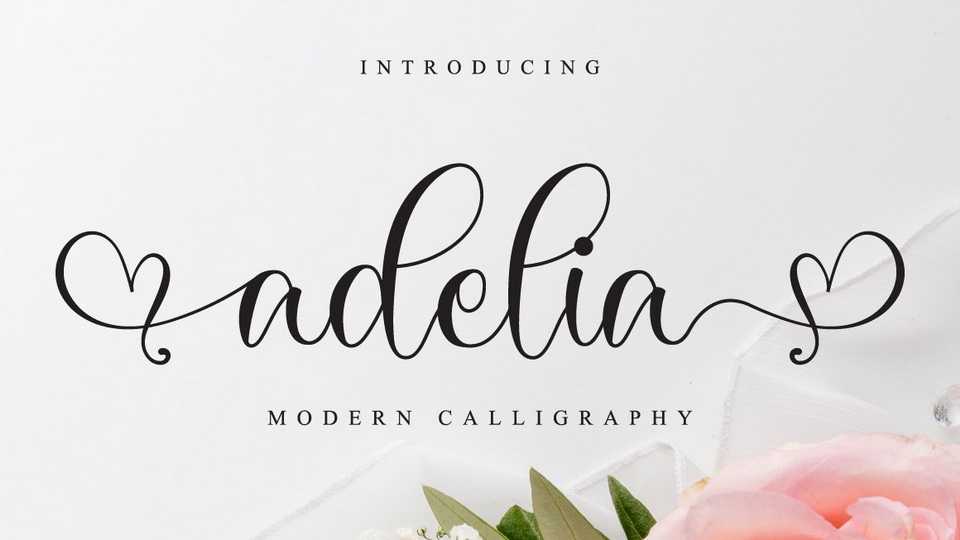
Download Adelia font, an exquisite handwritten typeface, masterfully designed to become a true favorite. Adelia features its classy calligraphic influences while feeling contemporary and fresh.
Designer: Nissa Studio